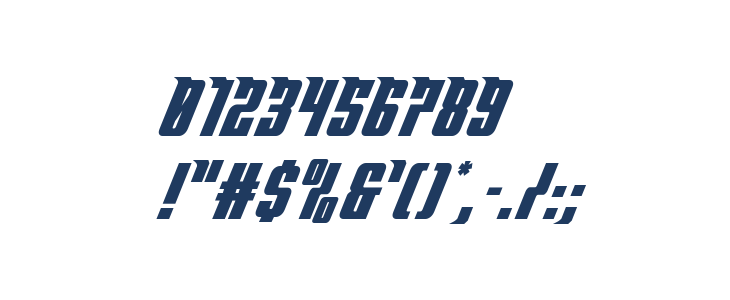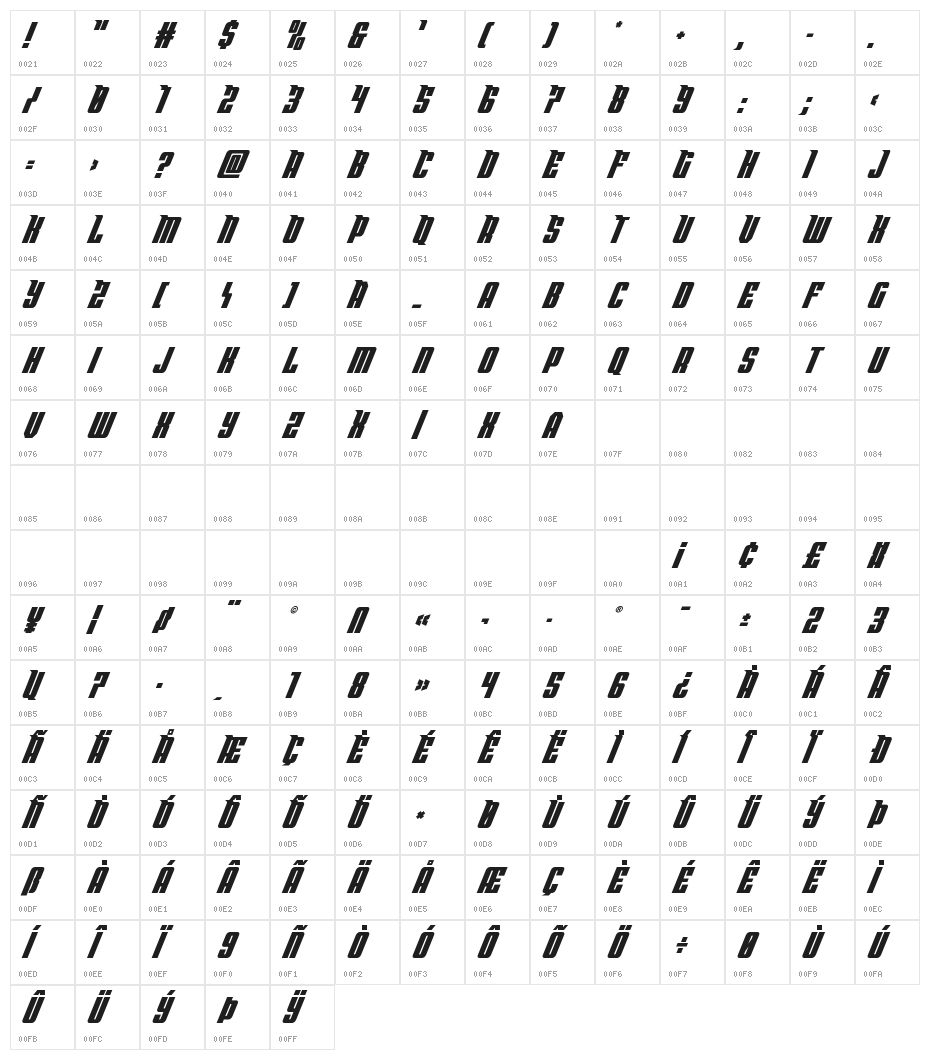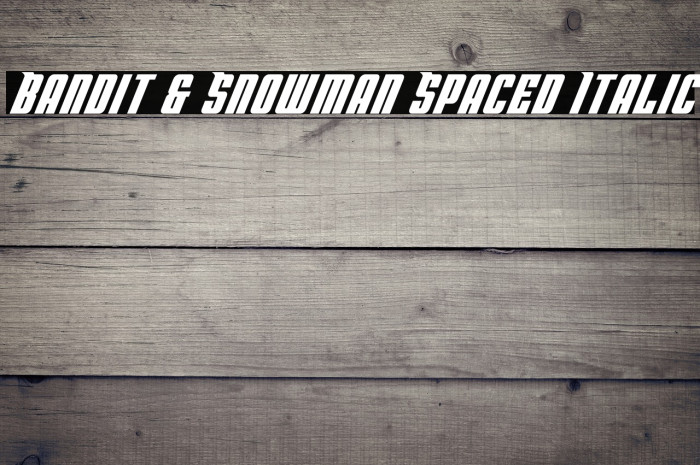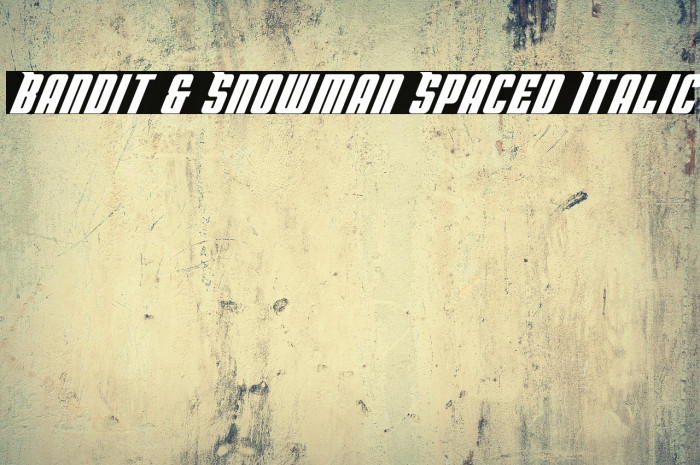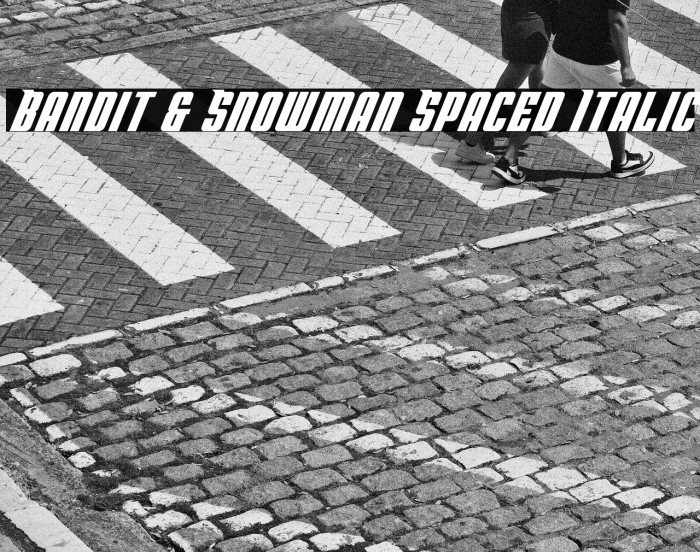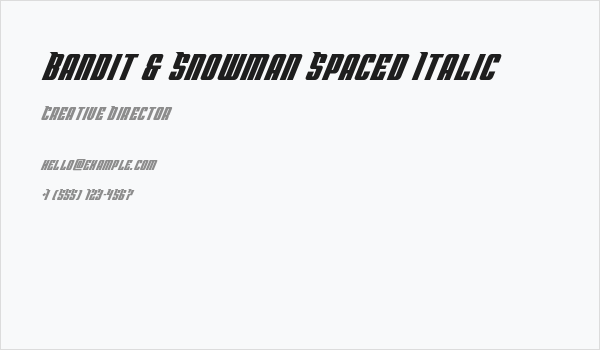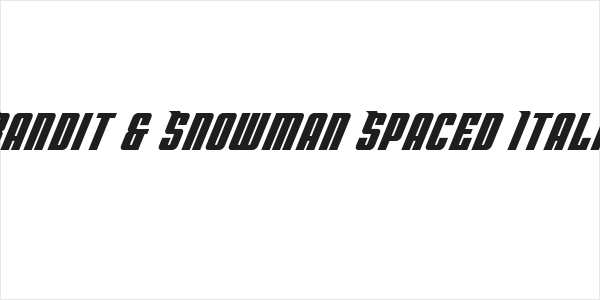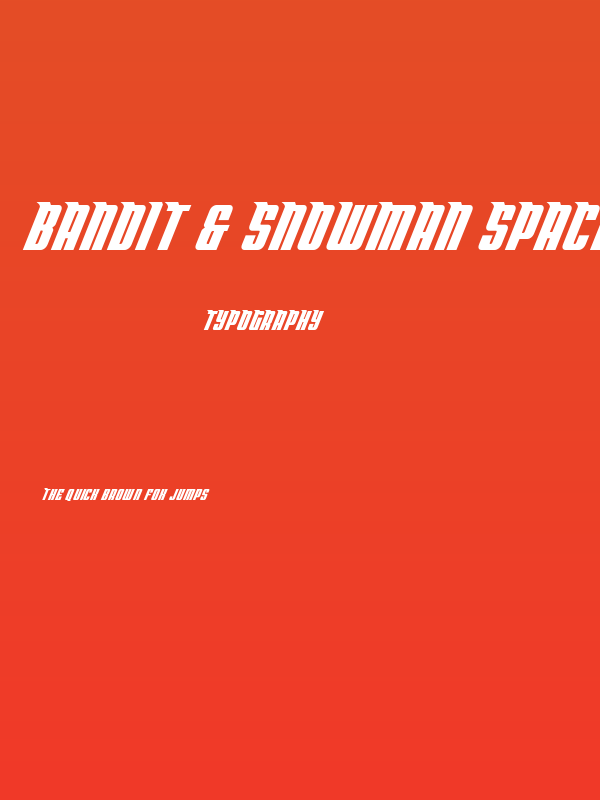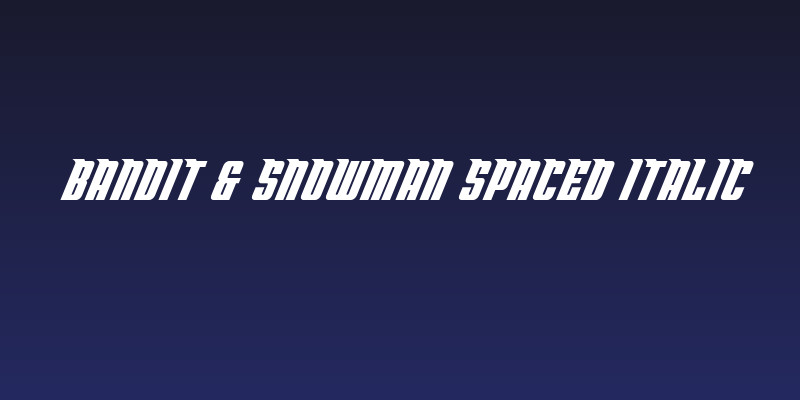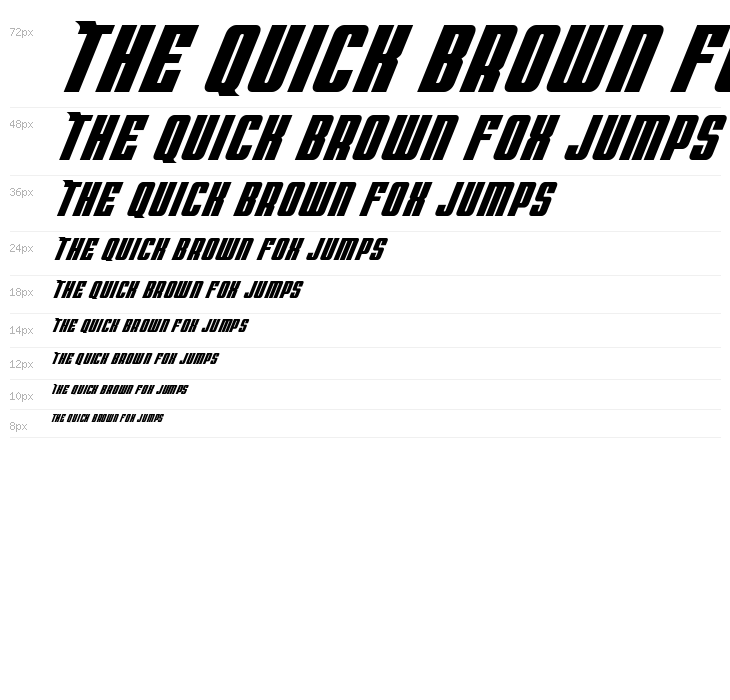
Bandit & Snowman Spaced Italic Font
Bandit & Snowman Spaced Italic Description
This font features a bold, italicized style with a strong presence. The characters are sharply angled, giving it a dynamic and energetic feel. The uppercase and lowercase letters maintain a consistent slant, enhancing the italic effect. The numbers and special characters follow the same design principles, ensuring uniformity across all glyphs. The font's bold weight and italic style make it suitable for attention-grabbing headlines and impactful designs. Its unique character shapes and spacing create a sense of movement, making it ideal for projects that require a modern and edgy aesthetic.
| Proposed Projects | Ideal for sports branding, dynamic posters, and modern advertising campaigns. |